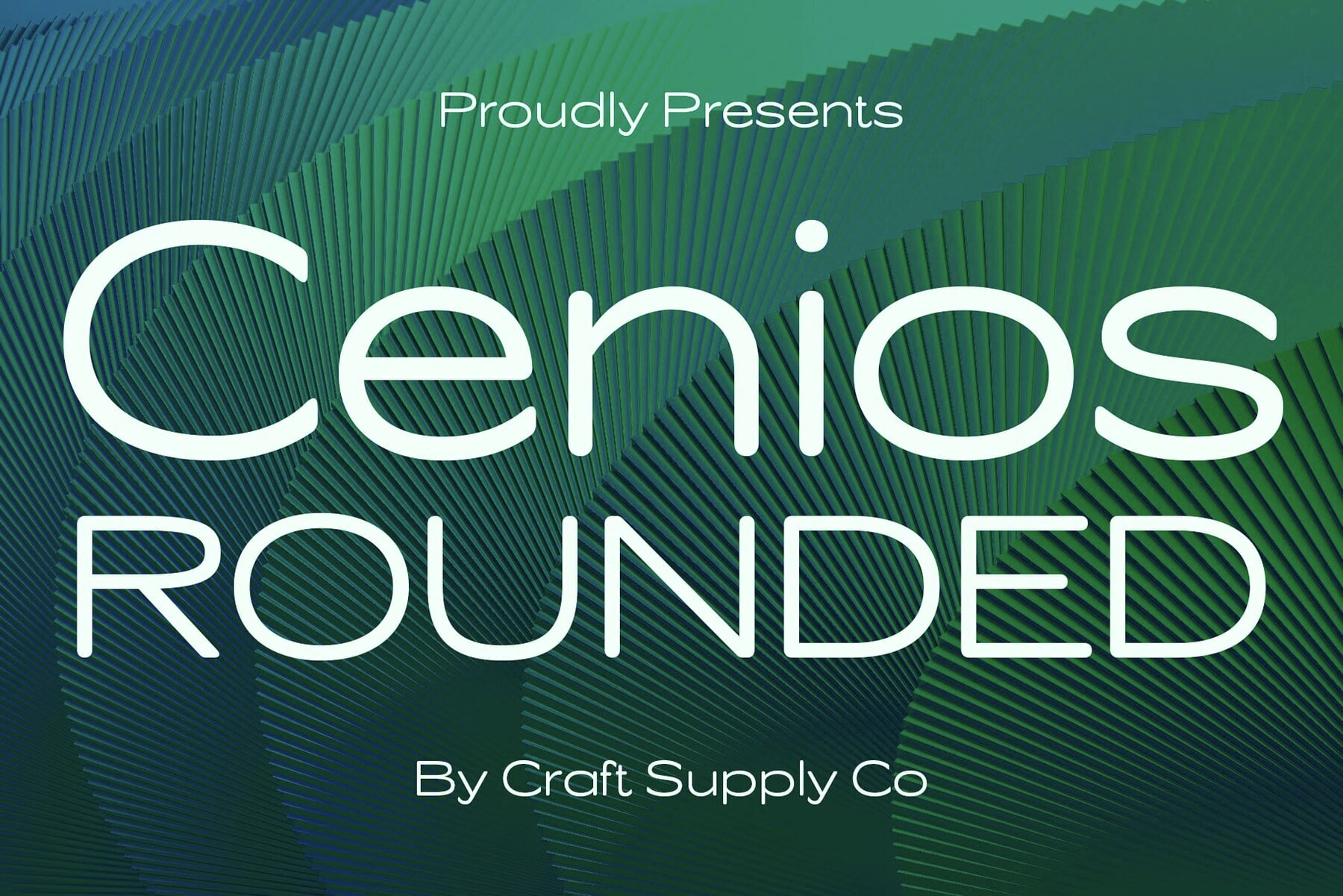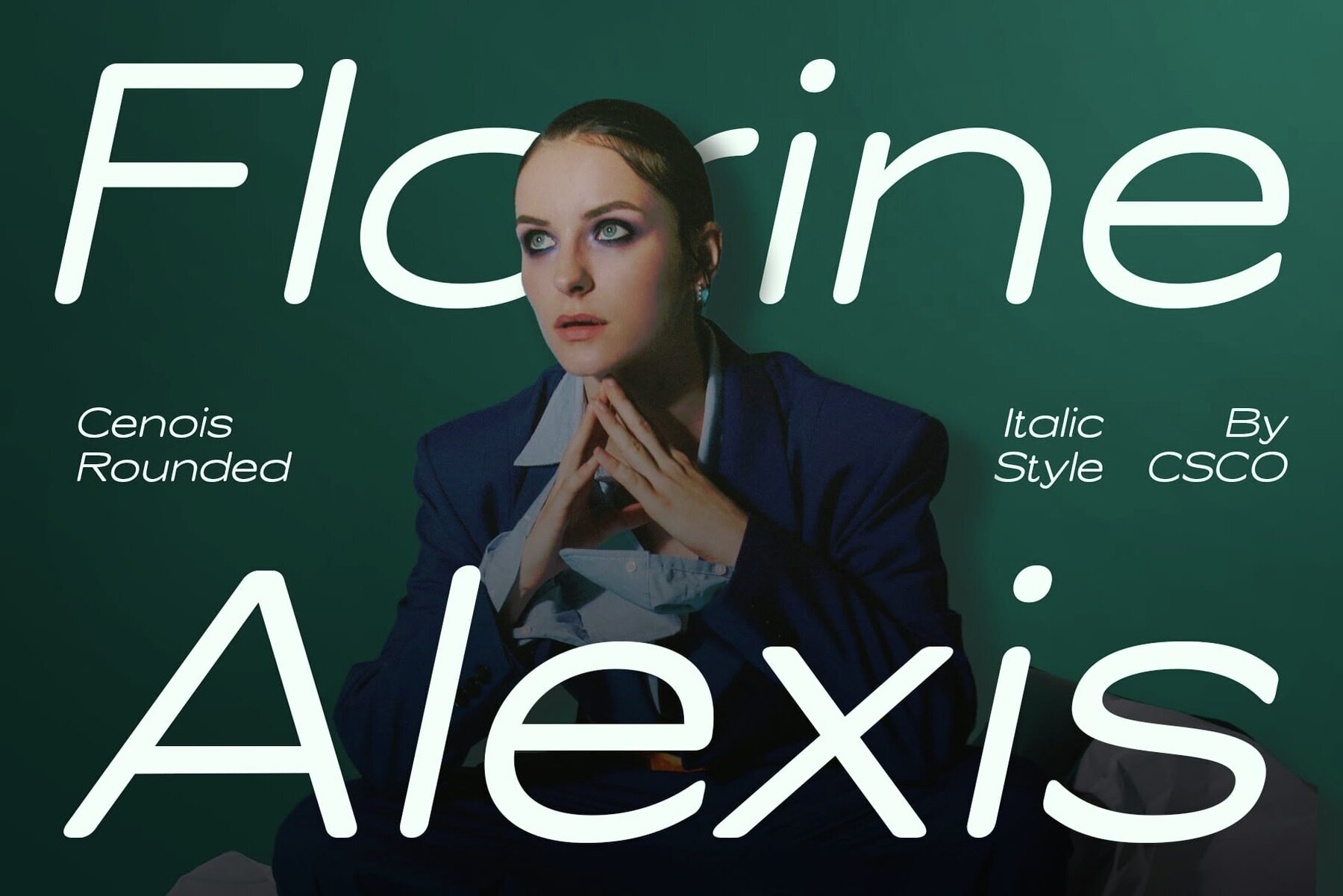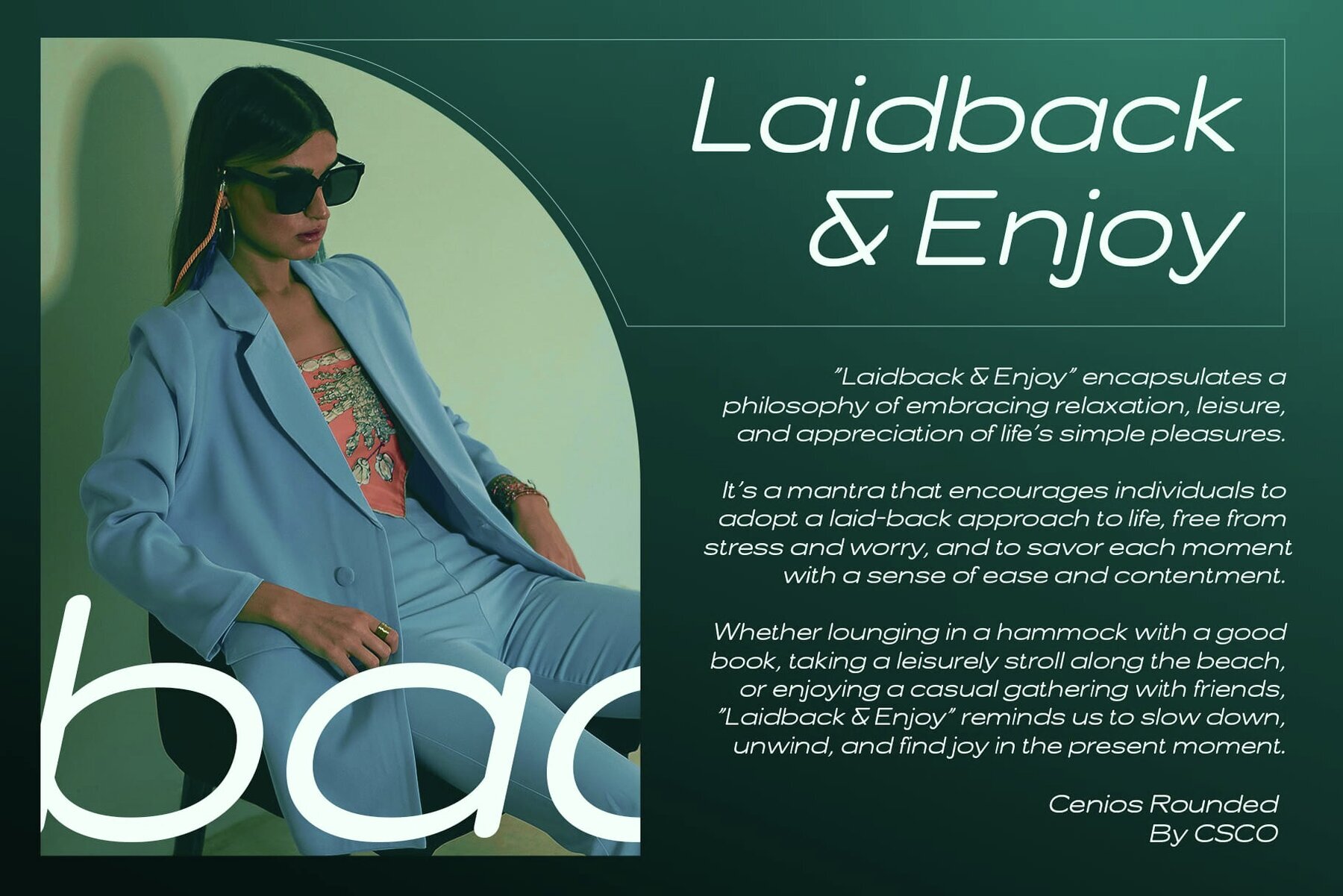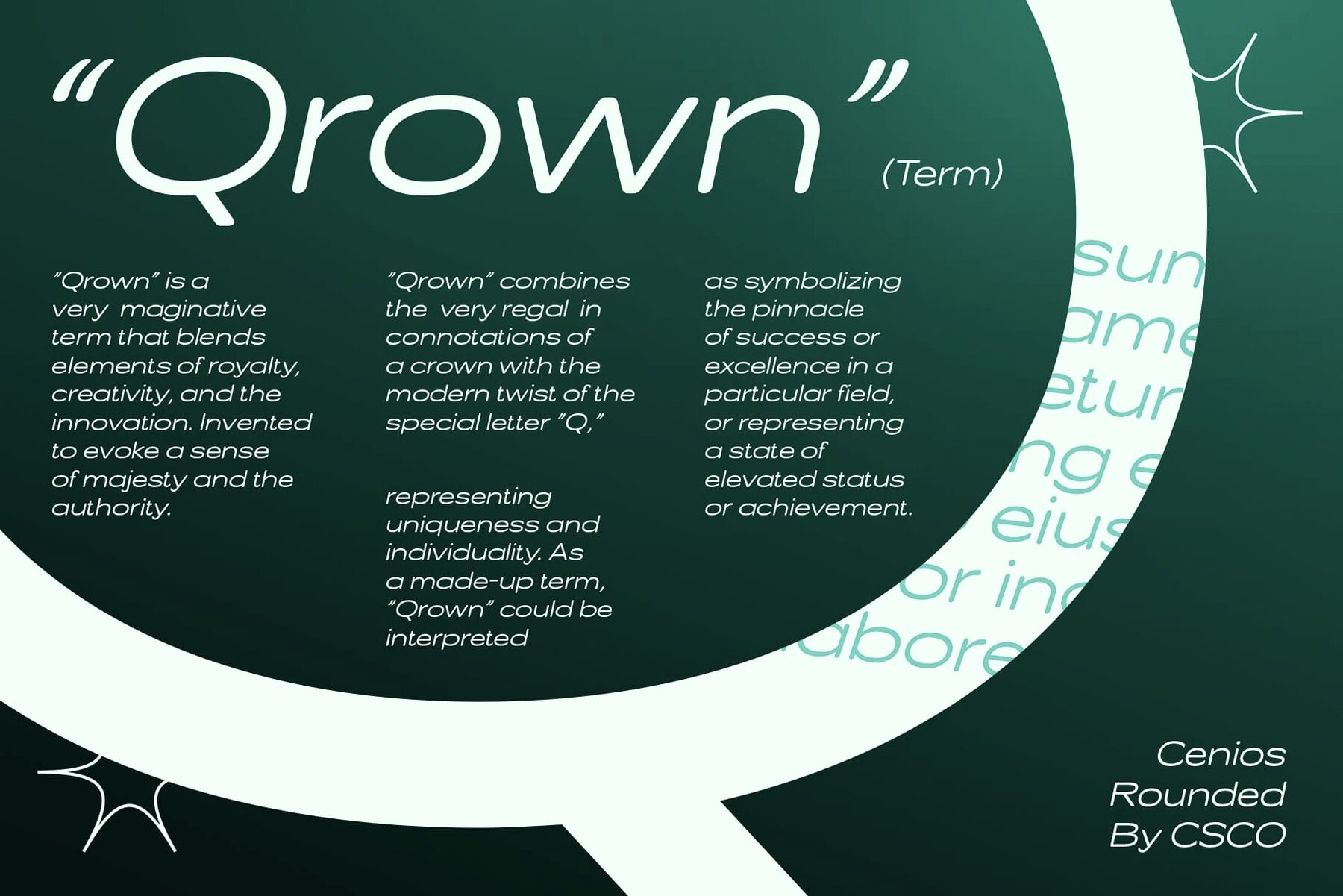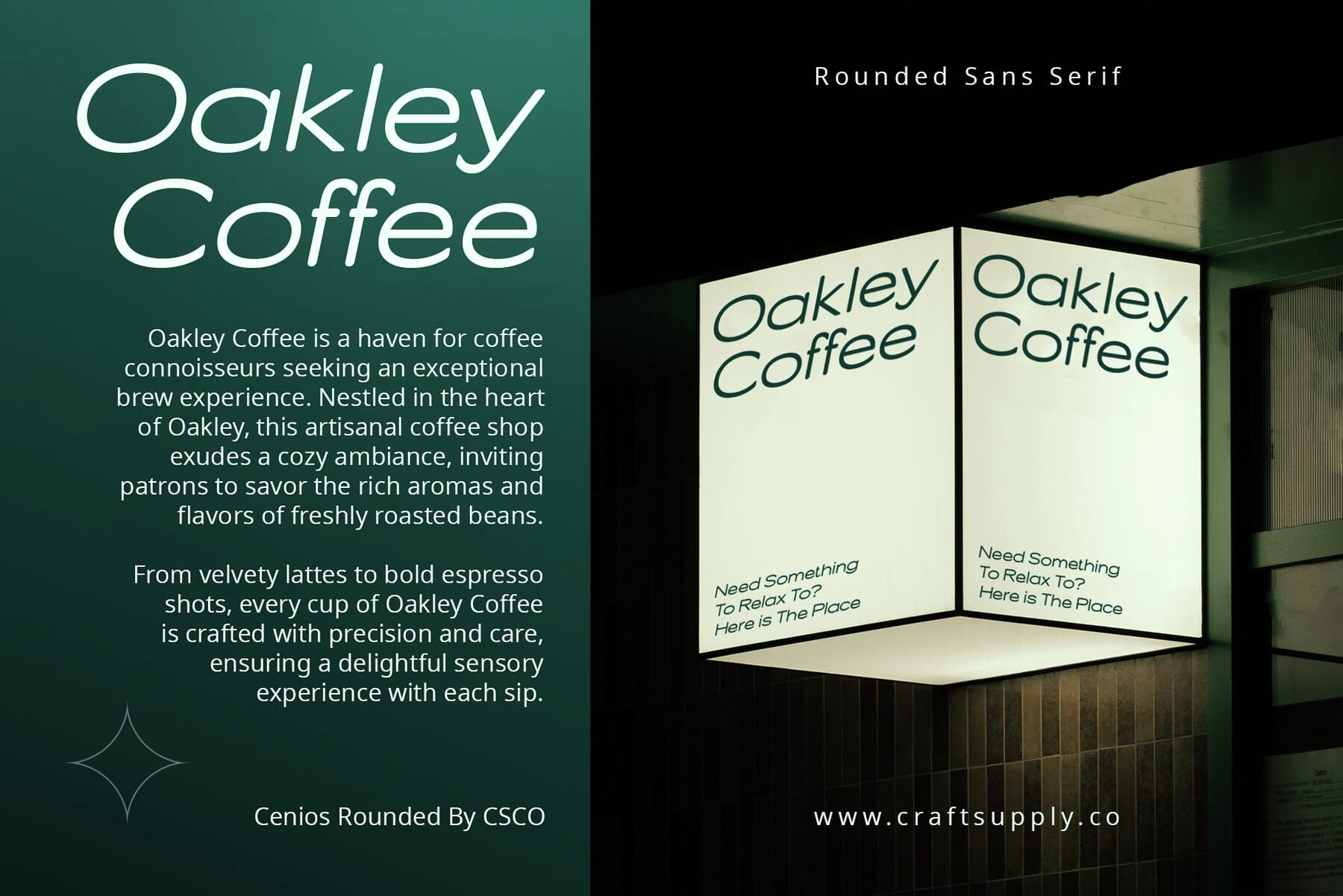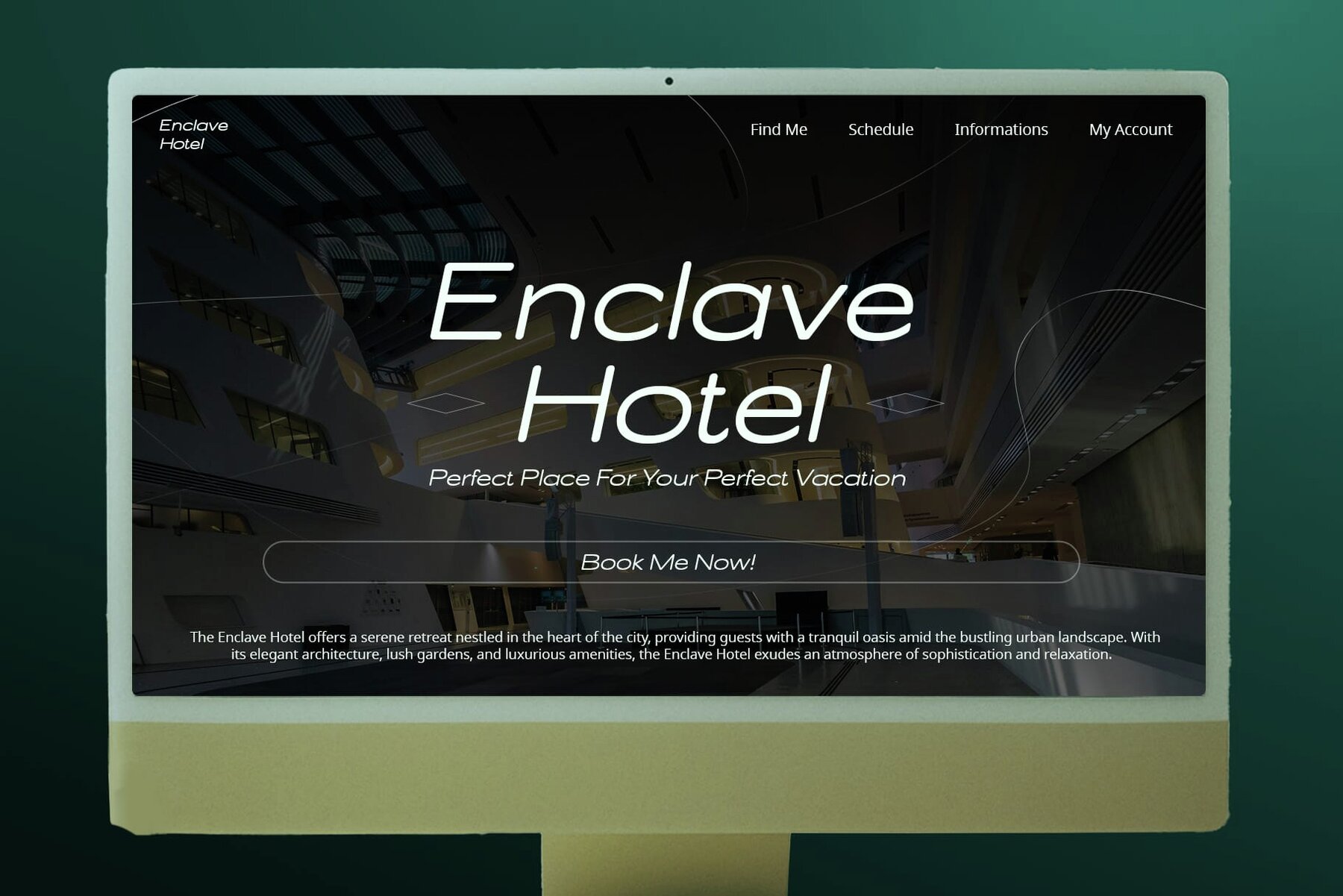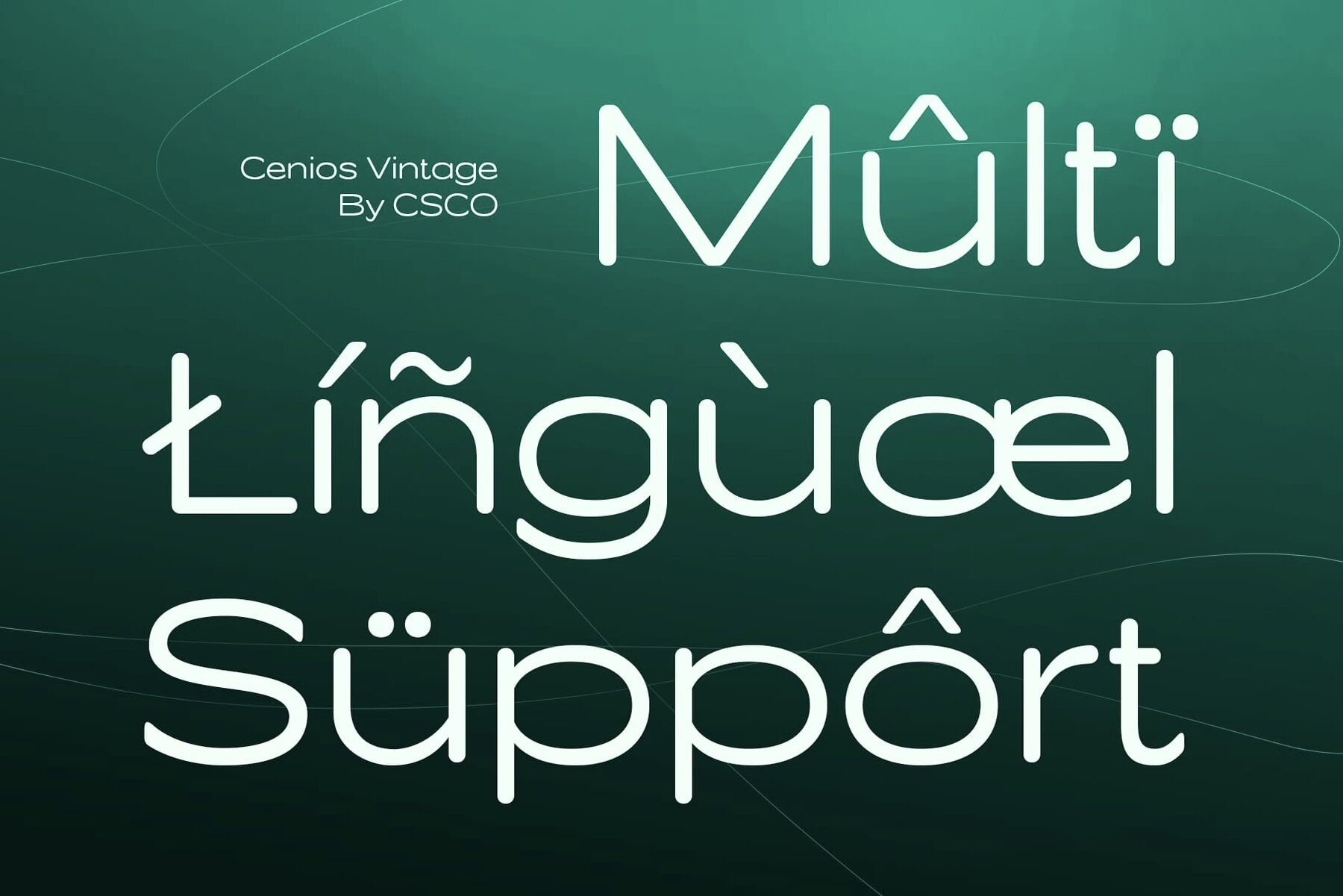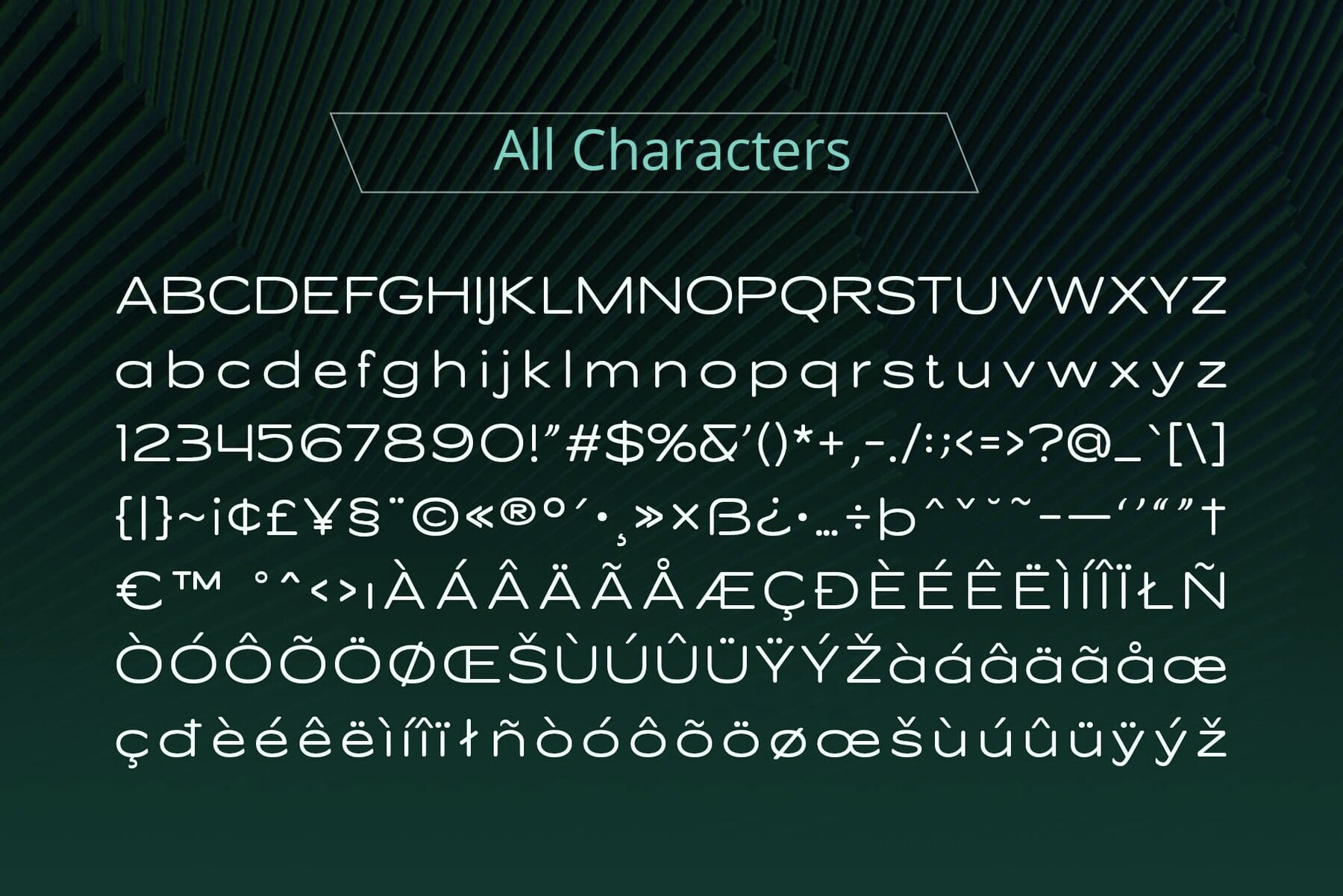
Cenios Rounded Font
Cenios Rounded, developed by Craft Supply Co., features a low-contrast sans serif design, echoing a clean and minimalist aesthetic perfect for corporate use. Its well-defined lines and uniform appearance enhance readability and offer a modern look in business settings.Cenios Rounded: Sleek and Corporate Low-Contrast Sans Serif
Design Features and Benefits
Applications in Professional Settings